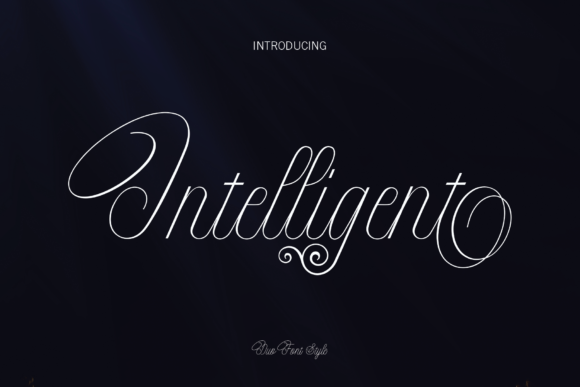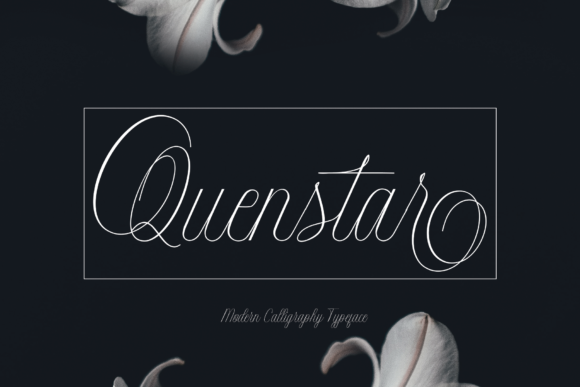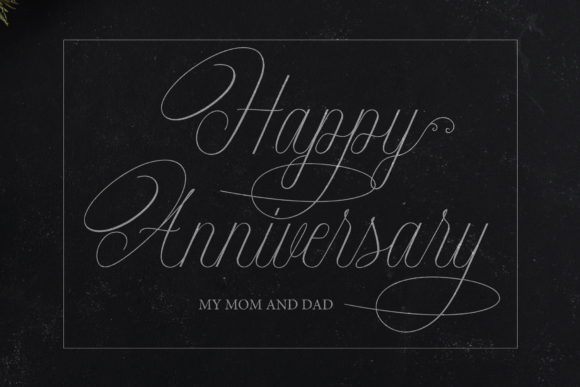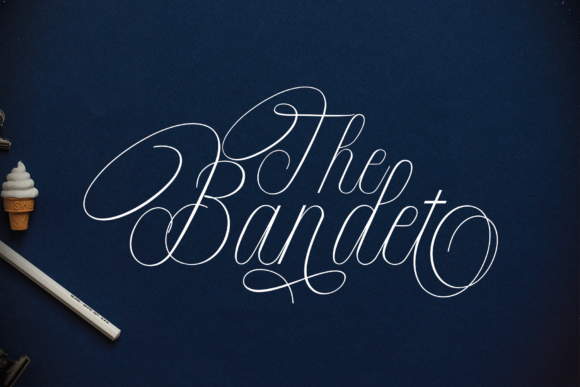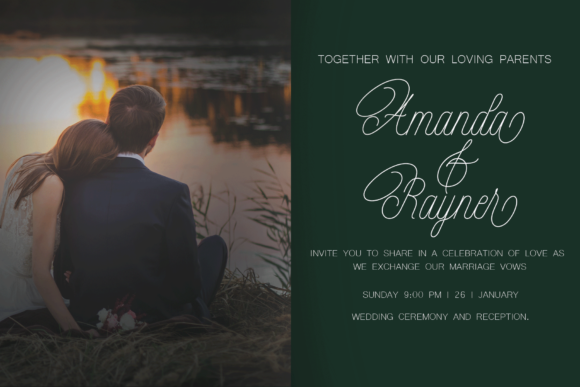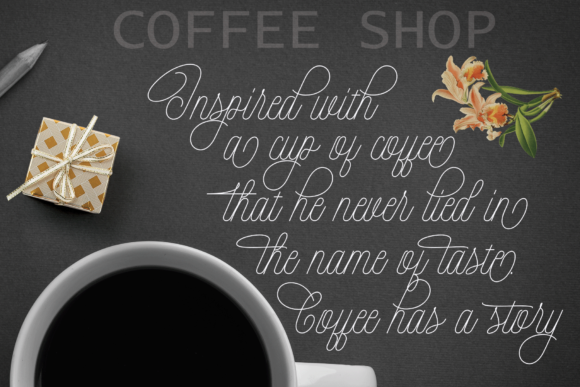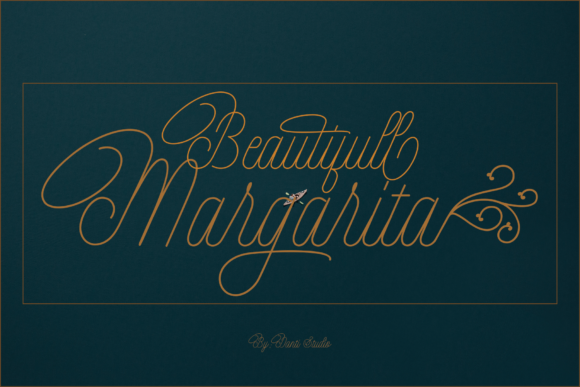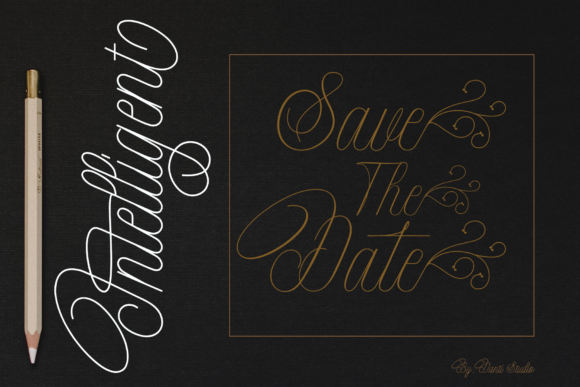
Intelligent Font
About Intelligent Font
Intelligent is an elegant script typeface. It features unique swashes and alternates. Fall in love with its authentic feel and use it to create gorgeous wedding invitations, beautiful stationary art, eye-catching social media posts, and cute greeting cards.